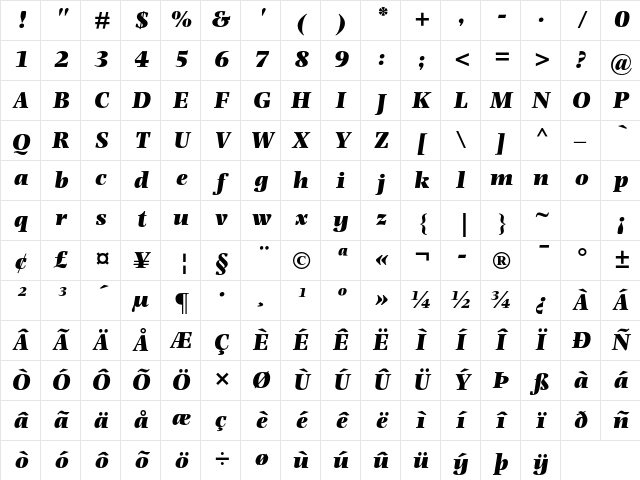
Photina MT Std Ultra Bold Italic
Style: Ultra Bold Italic
Designer: Jos￿ Mendoza y Almeida
Complete Photina MT Std Ultra Bold Italic glyph index. Displaying only characters natively supported by Photina MT Std Ultra Bold Italic font.
Design Context for Photina MT Std
Photina MT Std is a composed and adaptable typeface that performs quietly and consistently across a wide range of design contexts. The slanted form adds forward momentum and visual energy. Its bold stroke weight gives it real presence on the page.
Pro Tip: Use Photina MT Std for emphasis, pull quotes, and subheadings where its slanted energy can add rhythm to the layout.